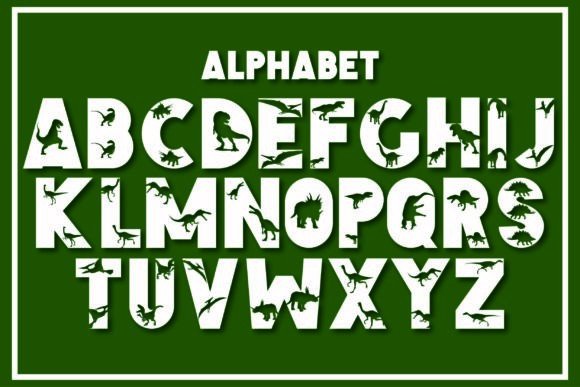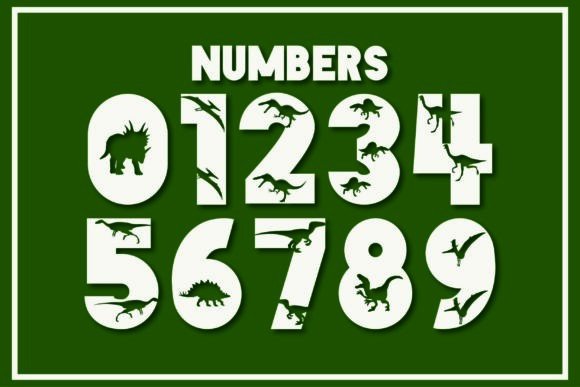
The Roar of Creativity: Unleashing the Power of Dinosaur Font
I’ll never forget the moment I stumbled upon the perfect font for a dinosaur-themed craft project. I was working on a fun letterhead design for a client’s kids’ party invitations, and I just couldn’t find the right fit. That was until I discovered the Dinosaur Font – a fun, chunky-lettered decorative font that features lovely dinosaurs as ornaments. In this article, I’ll share my experience with this amazing font, its features, and how to make the most of it in your designs.
- Unique and playful design that’s perfect for creative projects ✅
- Lovely dinosaur ornaments that add a touch of whimsy to your designs 🦖
- Chunky letters that make for great titles and headings 📚
- Versatile and suitable for a wide range of crafty ideas, from letterheads to stationery 🎨
Small Quirks and Limitations 🤔
- May not be suitable for body text due to its decorative nature ⚠️
- Some users may find the font a bit too playful for formal designs 😊
- Experiment with the font’s OpenType features, such as glyphs and stylistic alternates, to add more personality to your design.
The Designer Inspiration Behind Dinosaur Font
The Dinosaur Font was created with the intention of bringing a touch of playfulness and whimsy to creative projects. The designer, inspired by the world of dinosaurs, aimed to create a font that would transport users back to a prehistoric era. With its chunky letters and lovely dinosaur ornaments, this font is sure to delight designers and crafters alike.
| Font Name | Dinosaur Font |
| Author | CHEETAH DOODLE |
Q: What type of projects is Dinosaur Font best suited for?
A: Dinosaur Font is perfect for creative projects, such as letterheads, titles, stationery, and kids’ party invitations.
Q: Is Dinosaur Font available in different languages?
A: The availability of Dinosaur Font in different languages may vary, but it can be used with many languages that support the Latin alphabet.